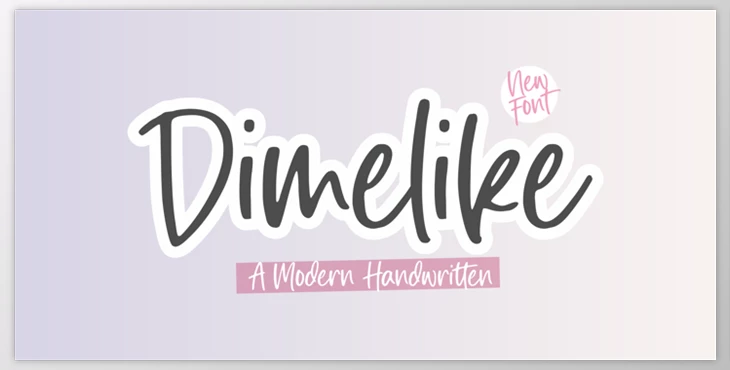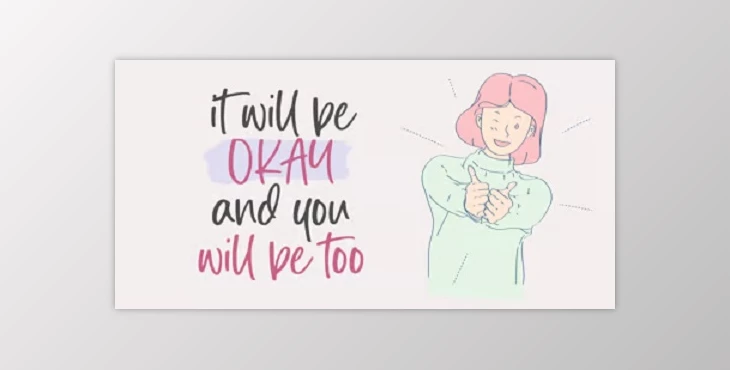
The Dimelike Modern Handwritten Font is a contemporary handwritten font with a blend of beauty and sophistication.
Ideal for various purposes such as wedding invites, thank-you cards, greetings, quotes, and business cards, it adds a personal touch to any design, including logos and other creative projects.